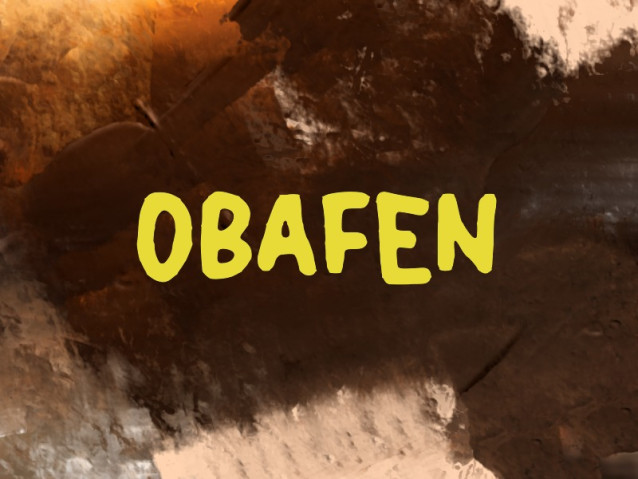
Obafen Font
Obafen Font is a simple and modern display font suitable for quotes, logos, headings, titles, and many more. Use it on any of your creative projects, and your designs will become outstanding!